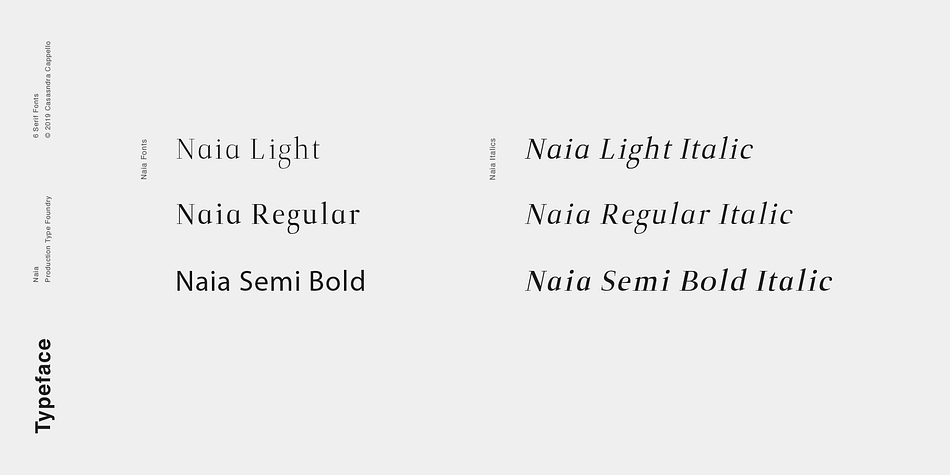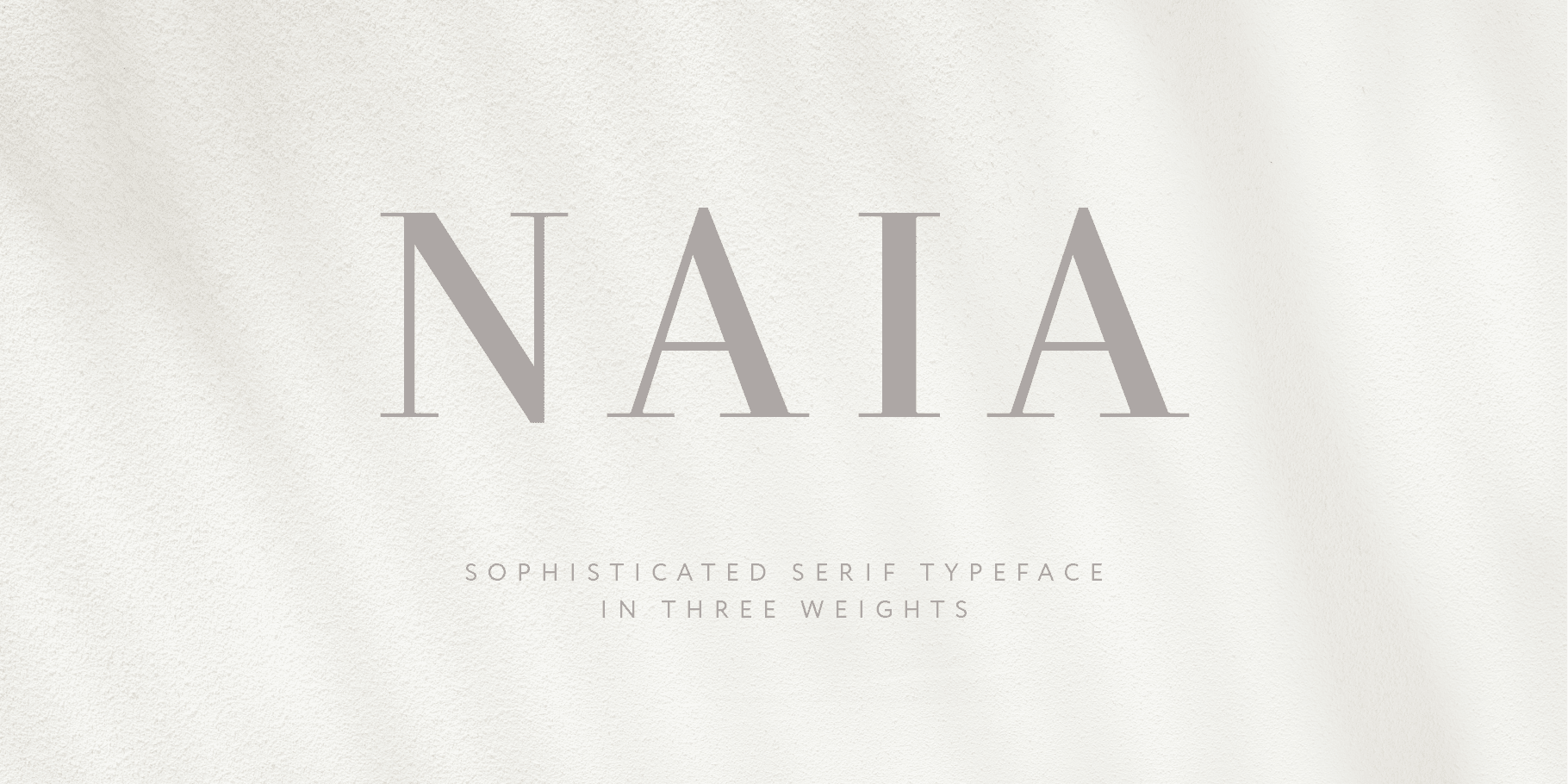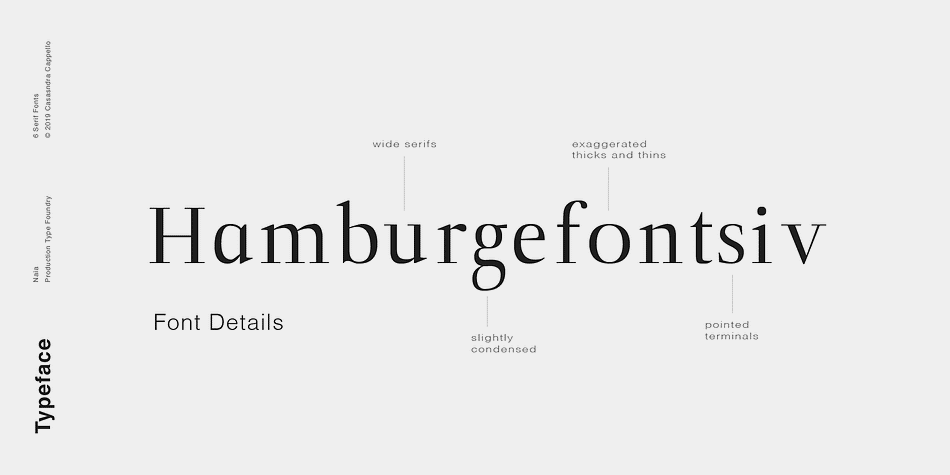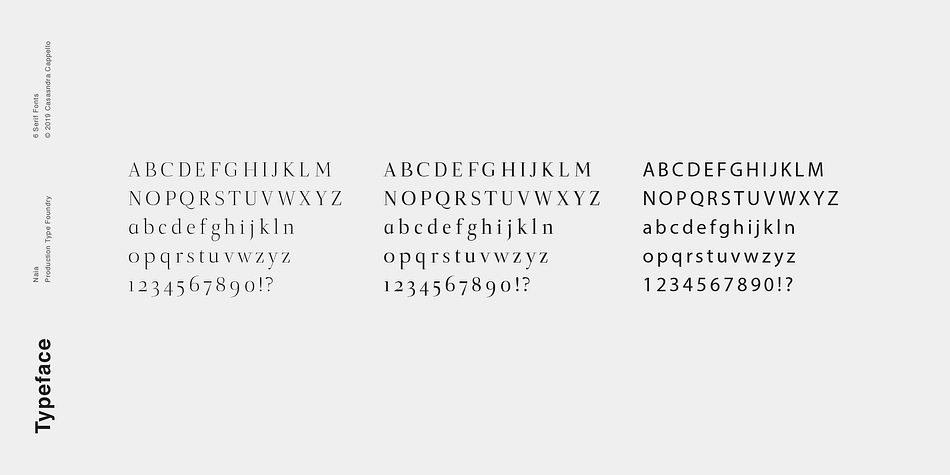
Naia
Designed by Cassandra Cappello, Naia is a display serif and serif font family. This typeface has six styles and was published by Cappello Designs.
Naia is a modernist, sophisticated, serif typeface. Classified as a Modern serif, Naia’s exaggerated thicks and thins, as well as its non-bracketed serifs dates back to the 18th century. This font family is very slightly condensed with wide serifs, but isn’t just your average serif. Naia’s pointed and angled terminals give it a little bit of personality.
It is recommended for headers though it can still definitely be used for body copy. This font family includes all Latin characters (including accents), numbers, special characters, and punctuation.